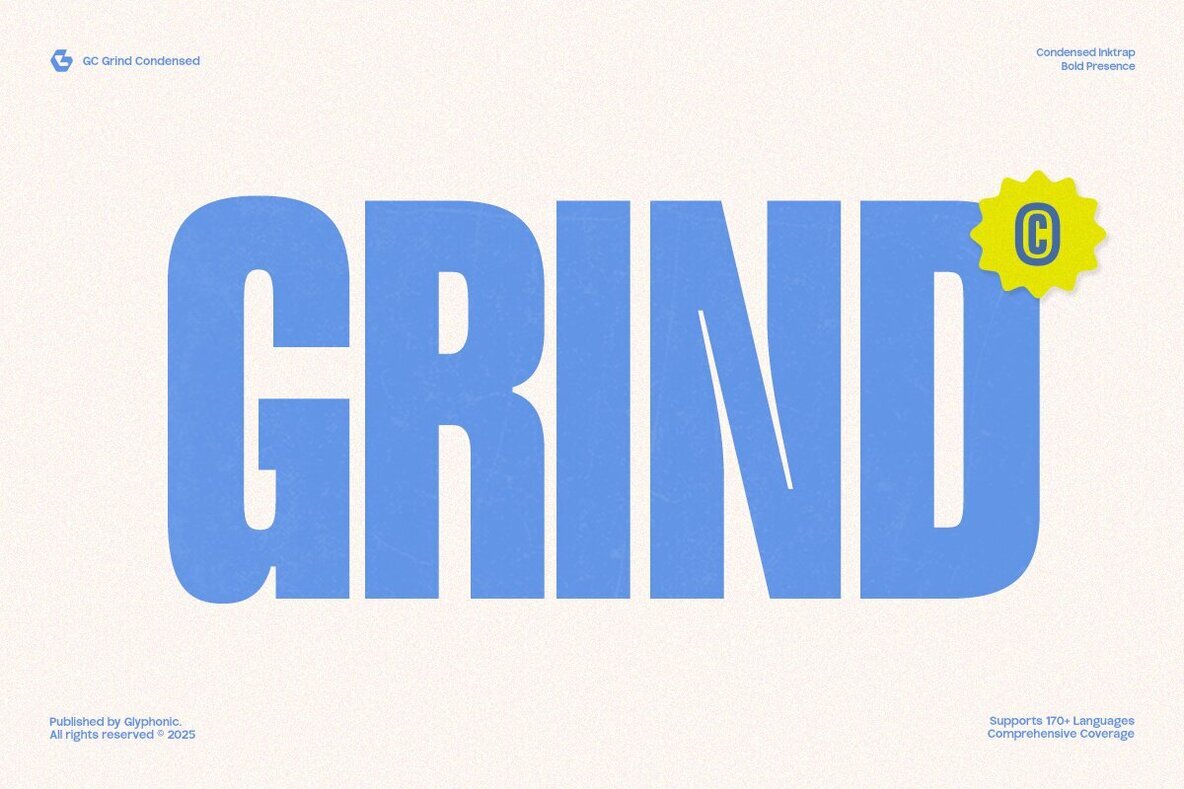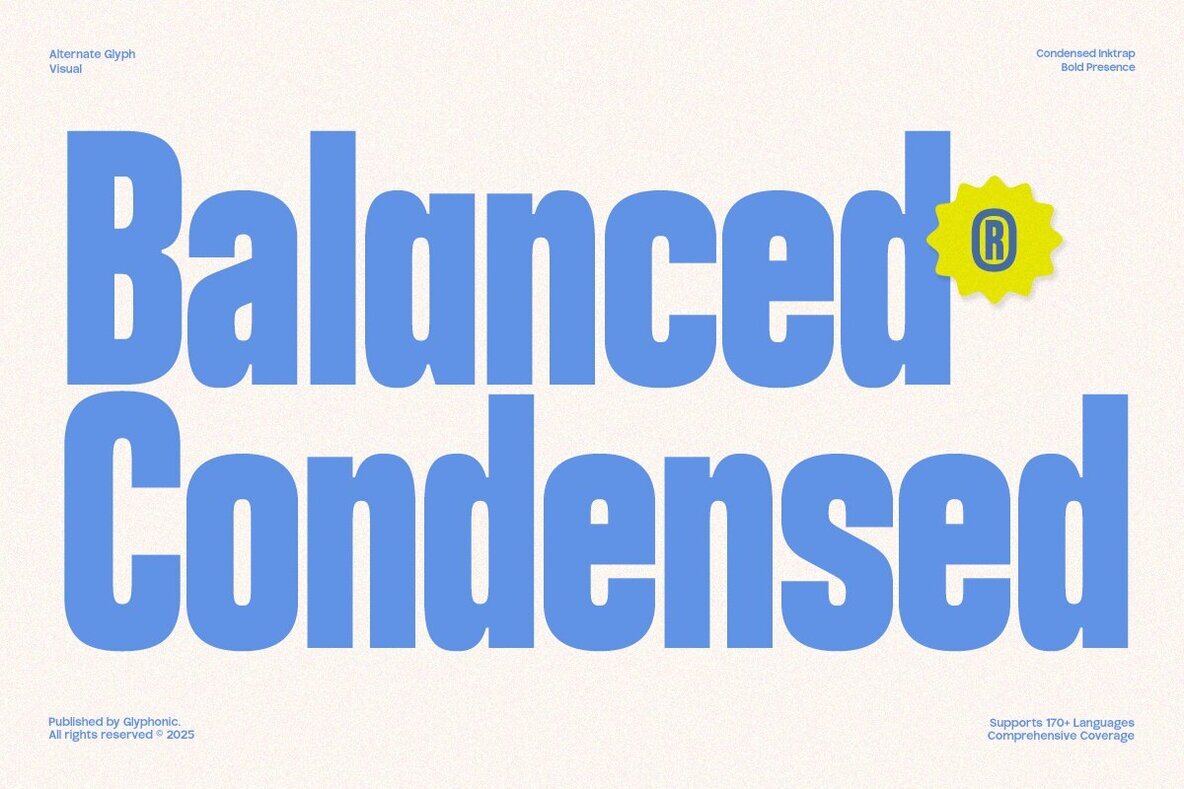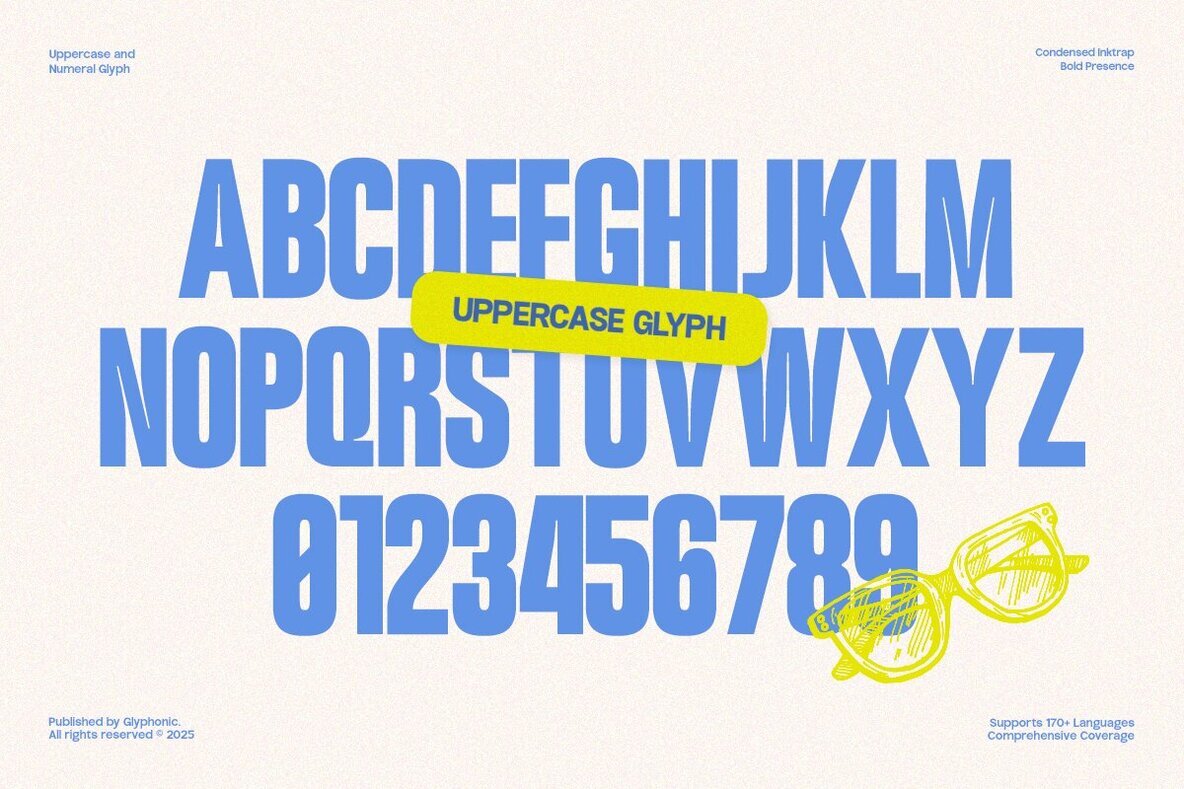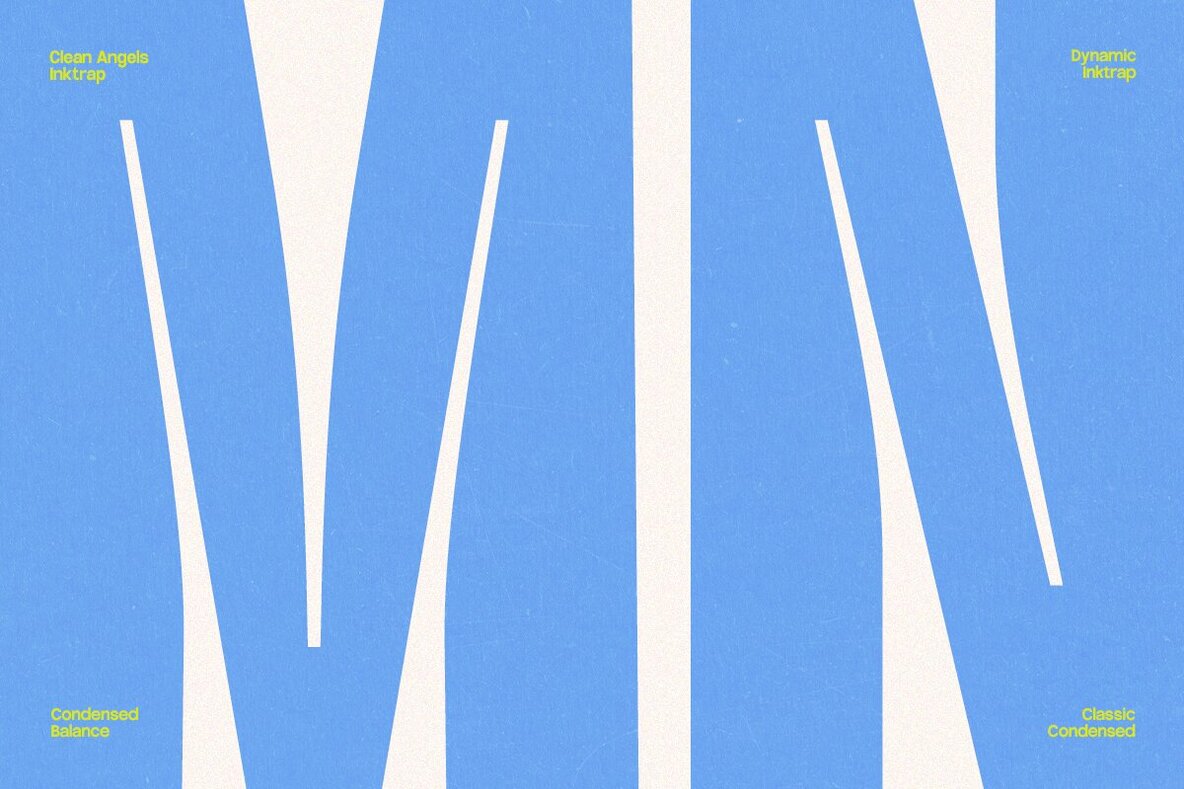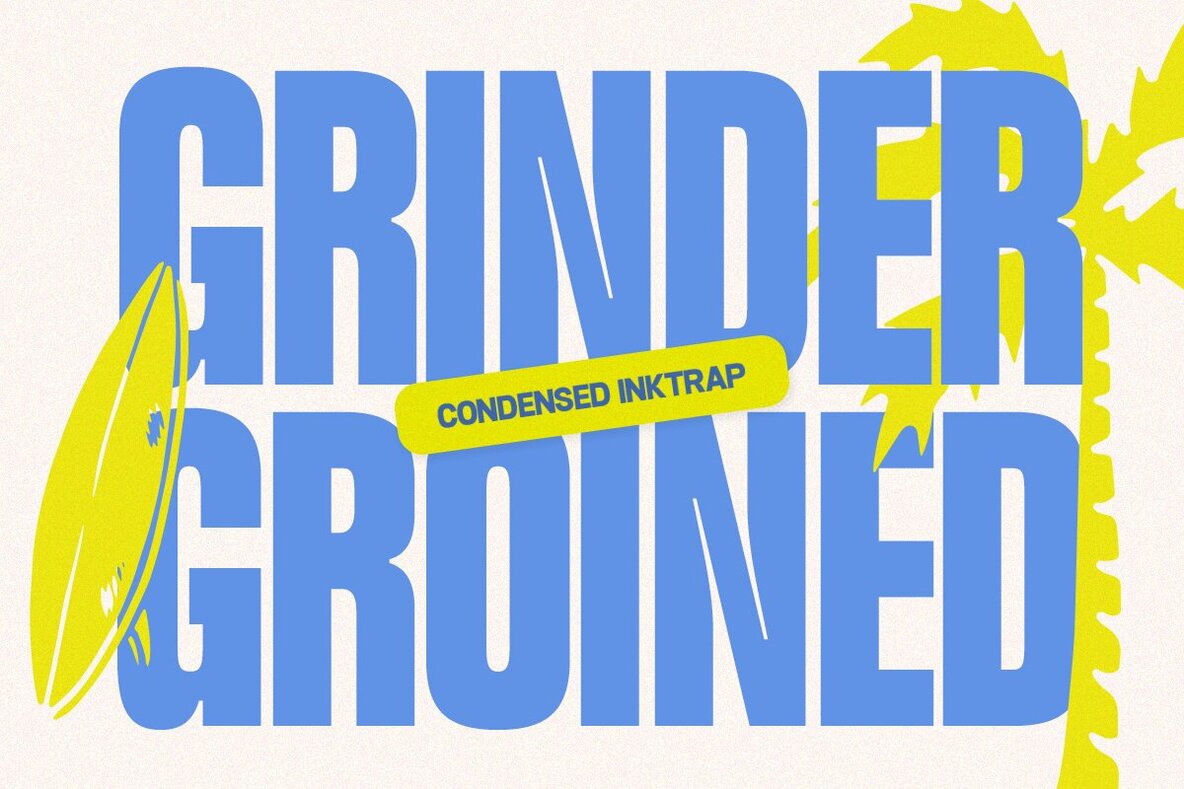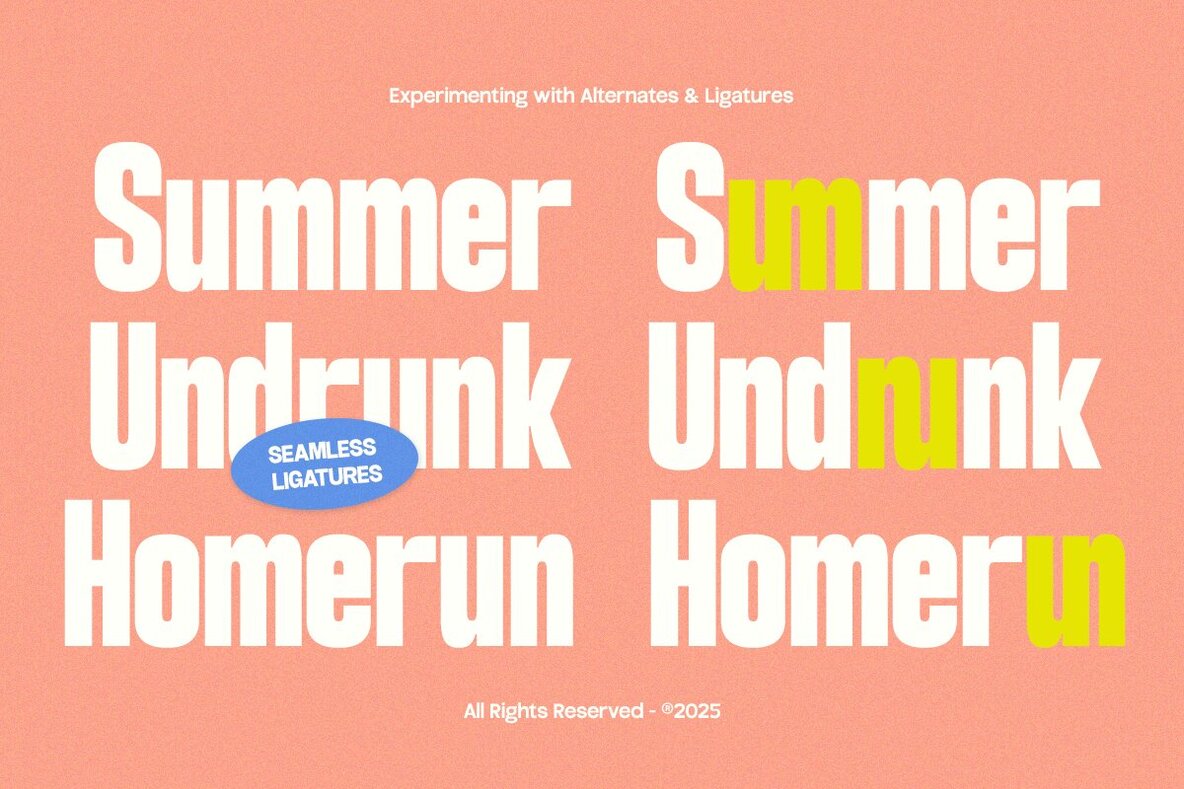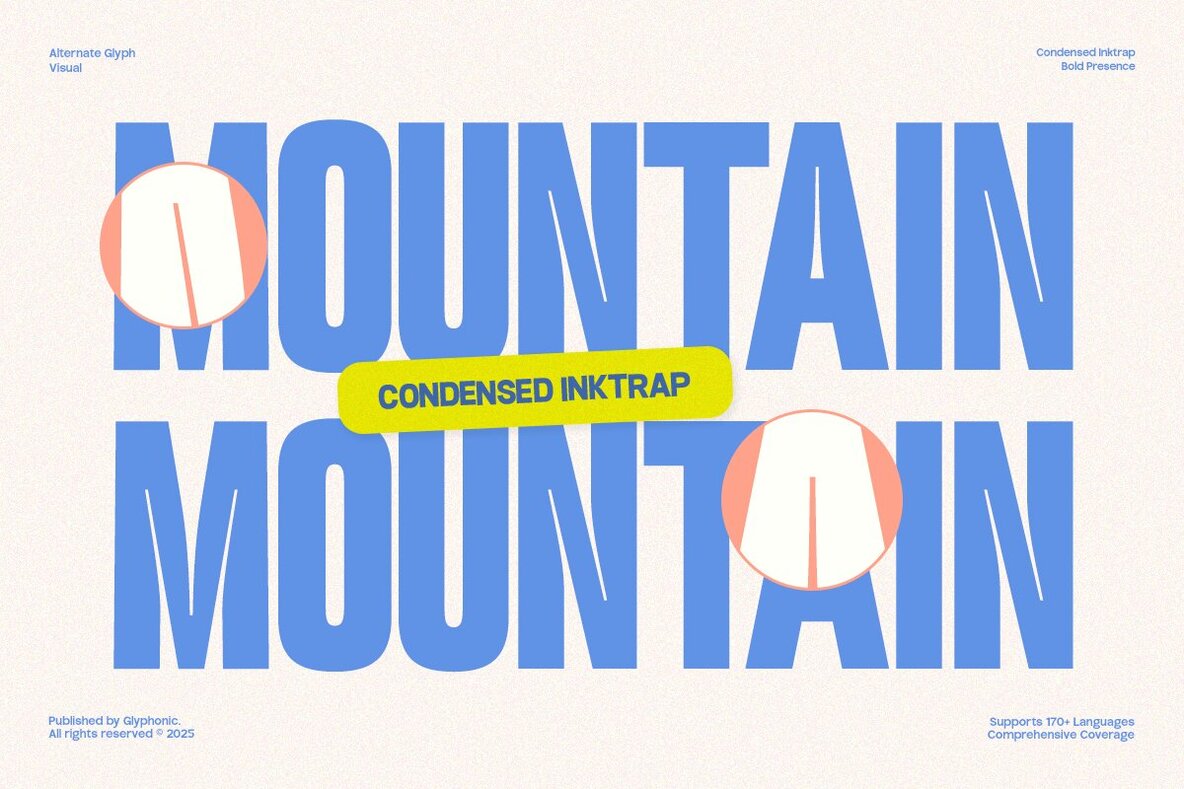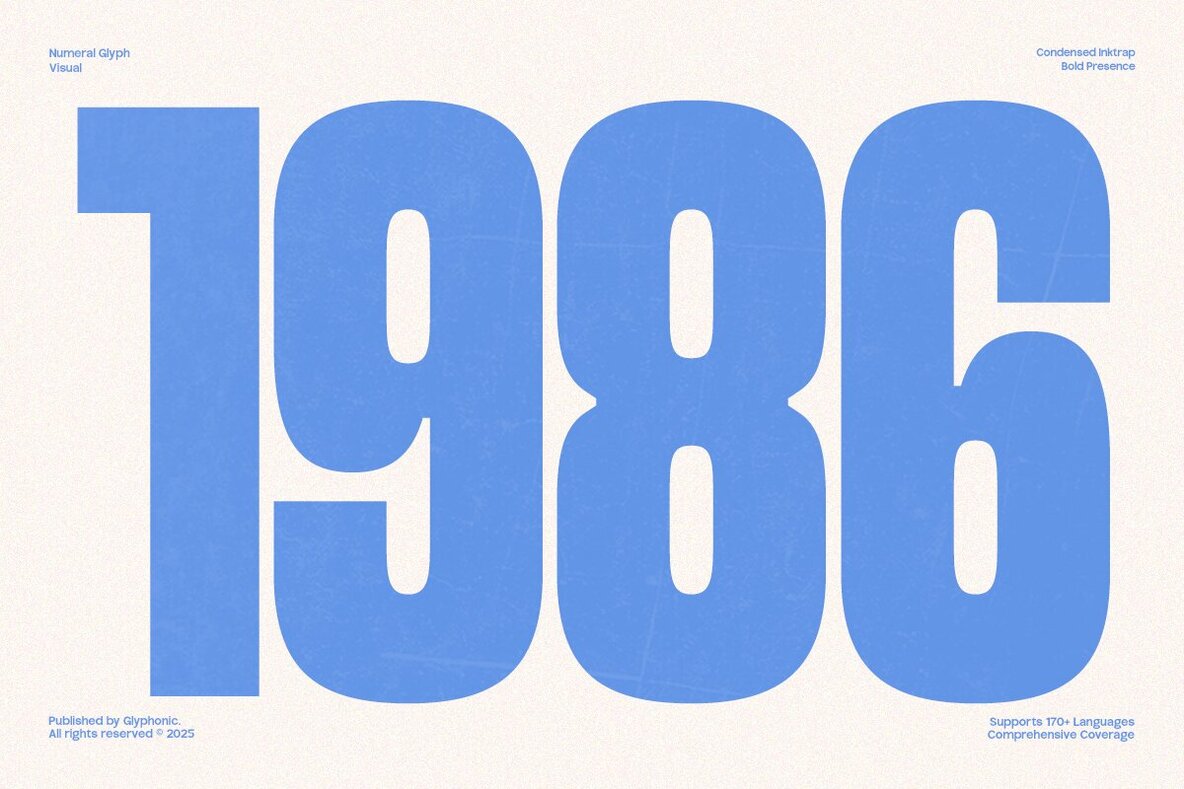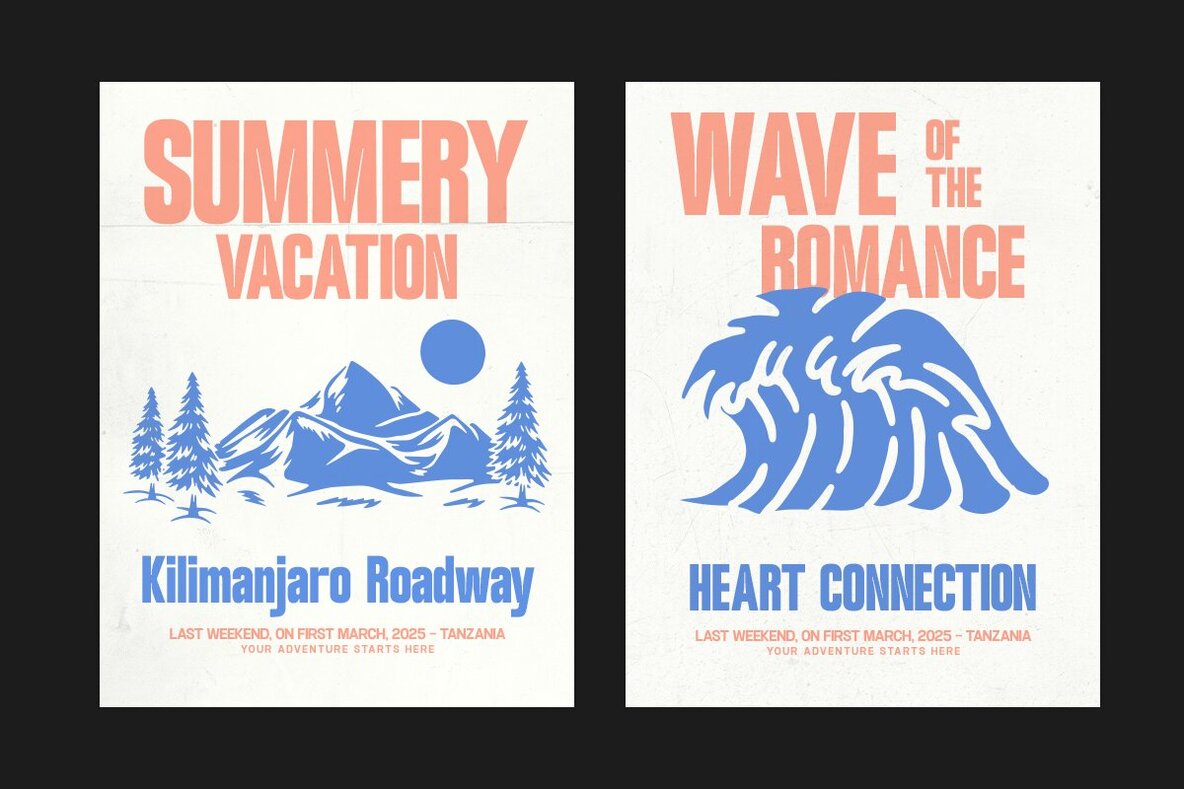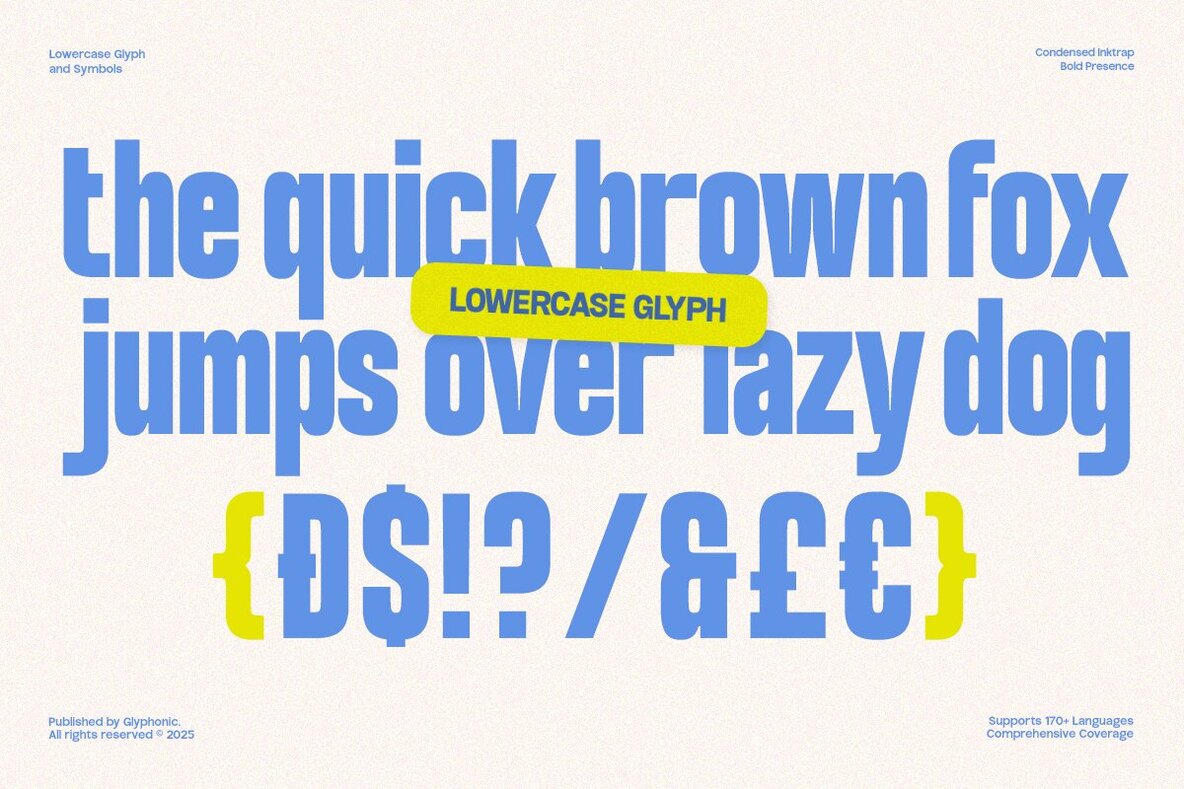
GC Grind Font
GC GRIND Extra Bold
GC Grind offers striking typeface design with bold, condensed proportions, creating a powerful visual presence. This modern font commands attention across a variety of contexts, making it ideal for posters, headlines, branding, sports, and urban-inspired designs. Each letter exudes energy, confidence, and clarity. With sharp edges, tight spacing, and an assertive stance, GC Grind presents a contemporary look that is dynamic and memorable. Perfect for crafting bold editorial statements, standout packaging, or digital visuals that demand attention, this font brings raw power and modern grit to your typography.GC Grind: Bold Condensed Typeface for Impactful Design